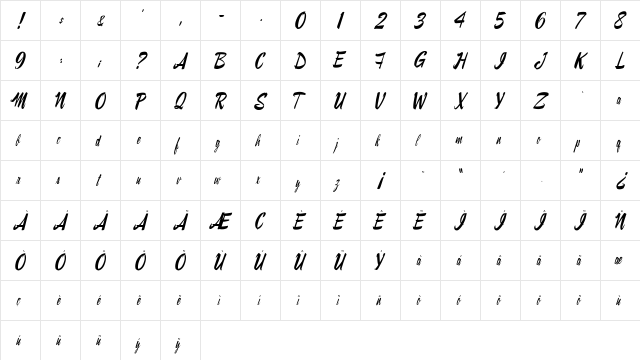
Ray Morgan Style Regular
| Foundry | dcoxy Medina Gregory |
| Designer | dcoxy Medina Gregory |
Design Context for Ray Morgan Style Typeface
Ray Morgan Style is a composed and adaptable typeface that performs quietly and consistently across a wide range of design contexts.